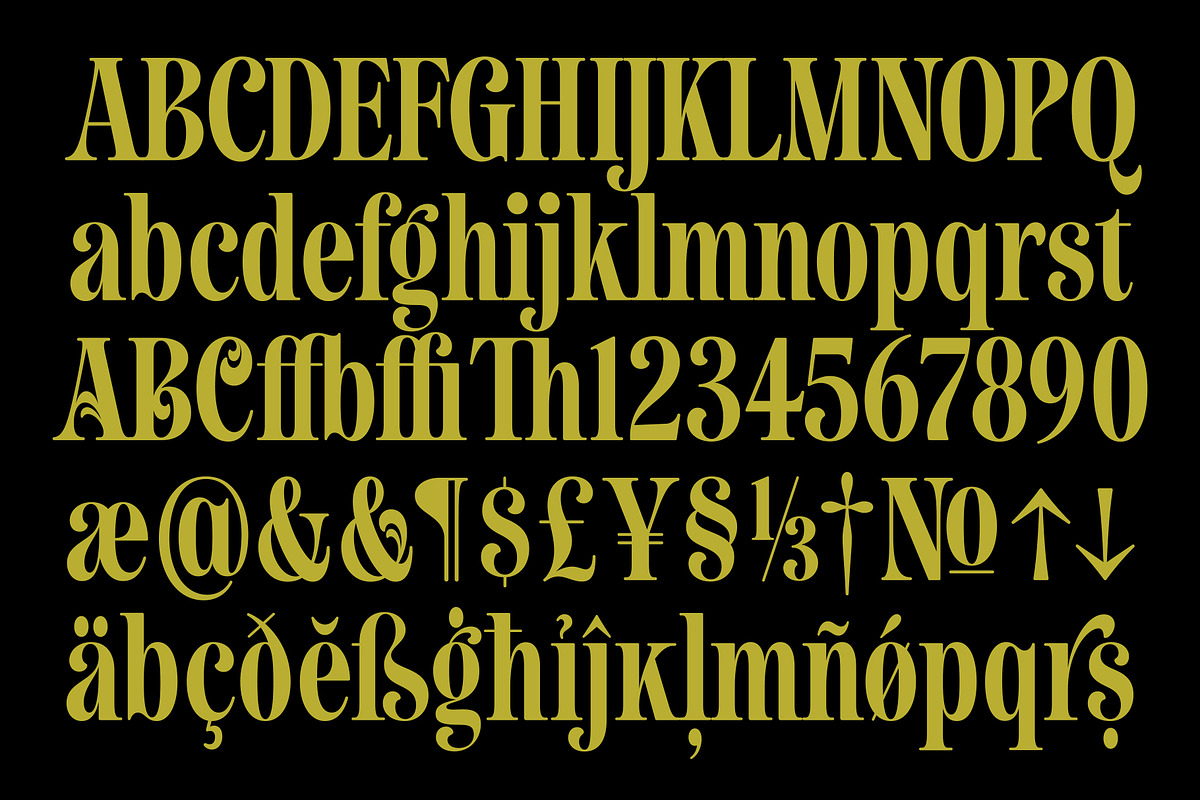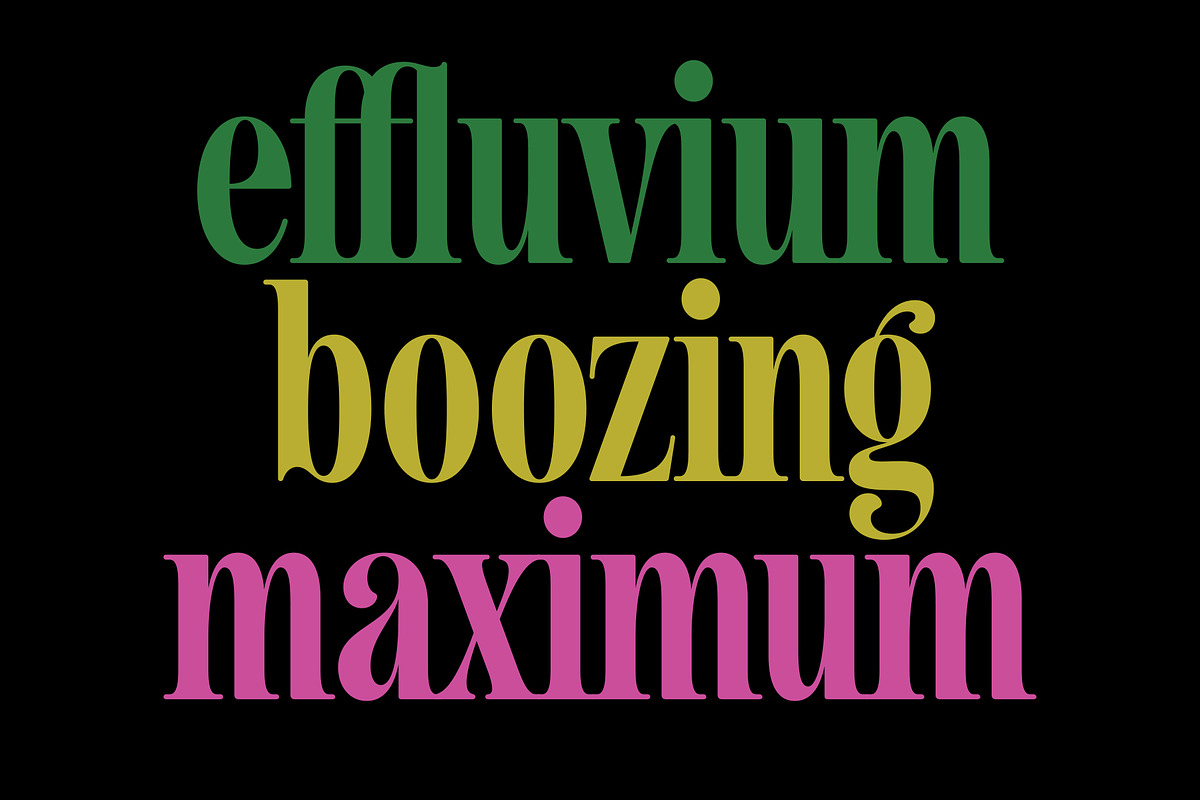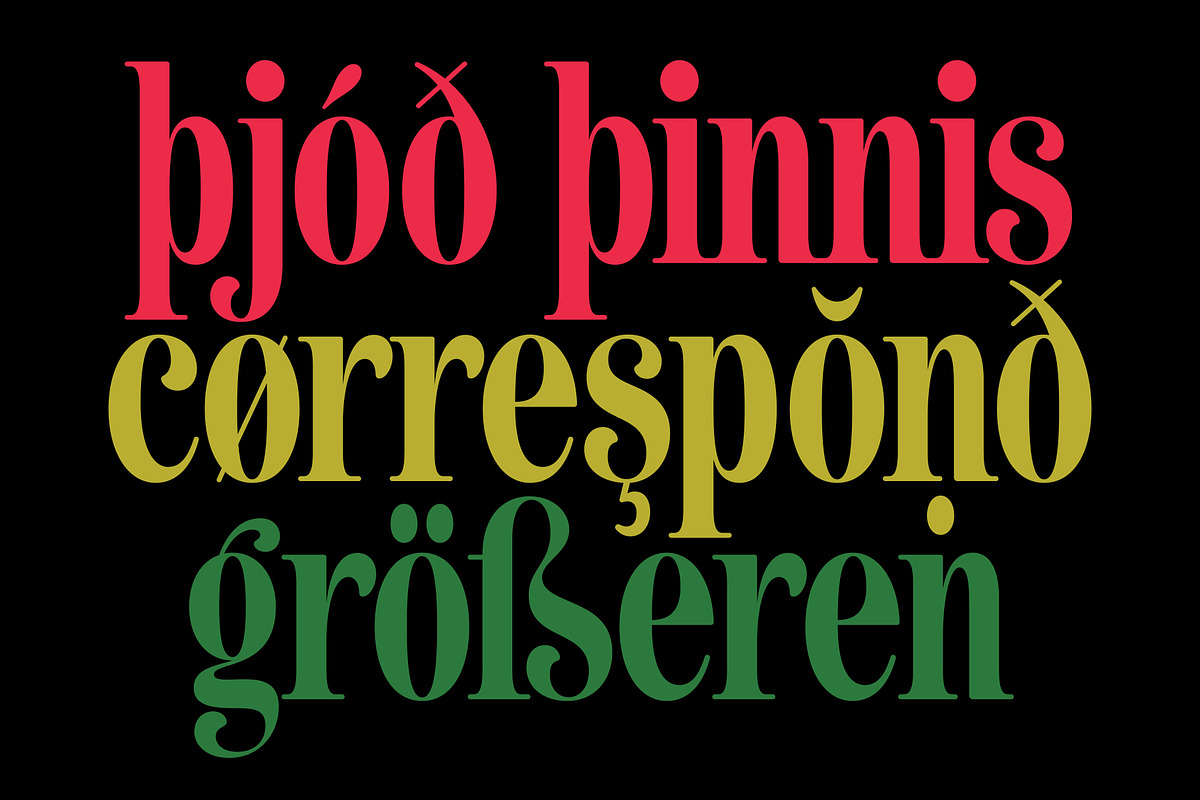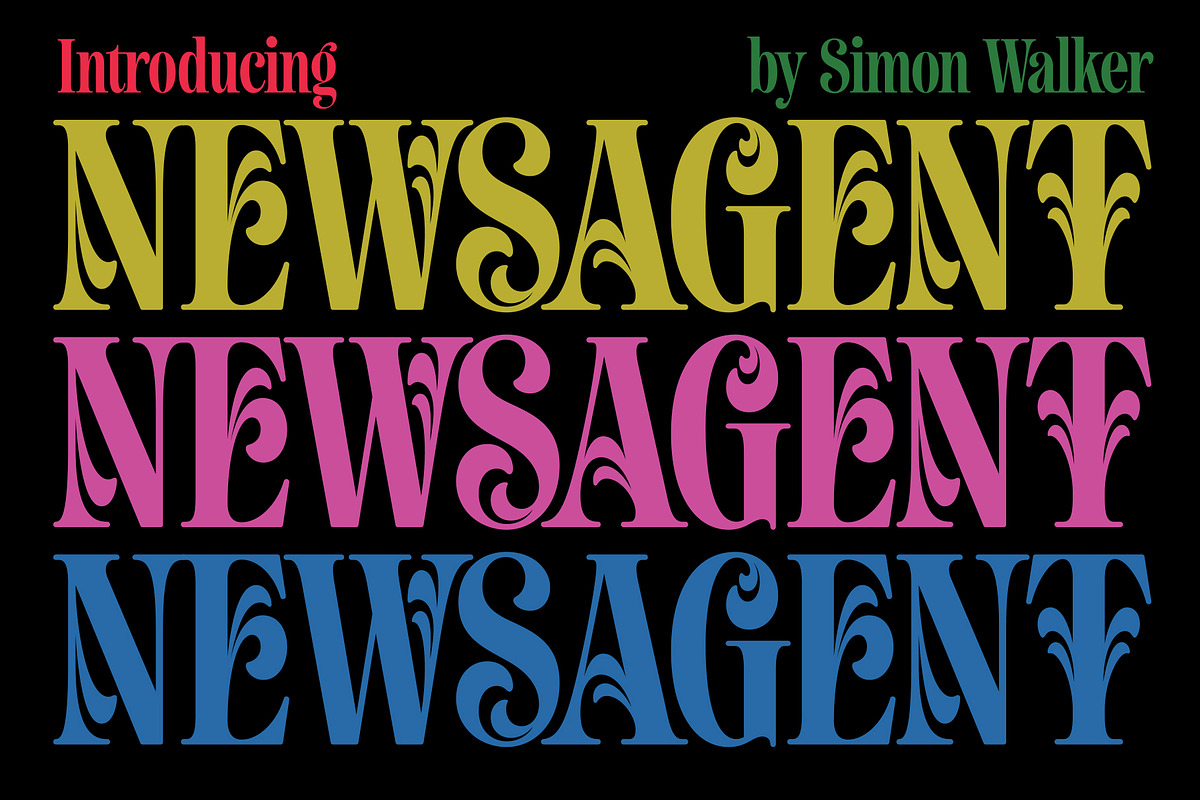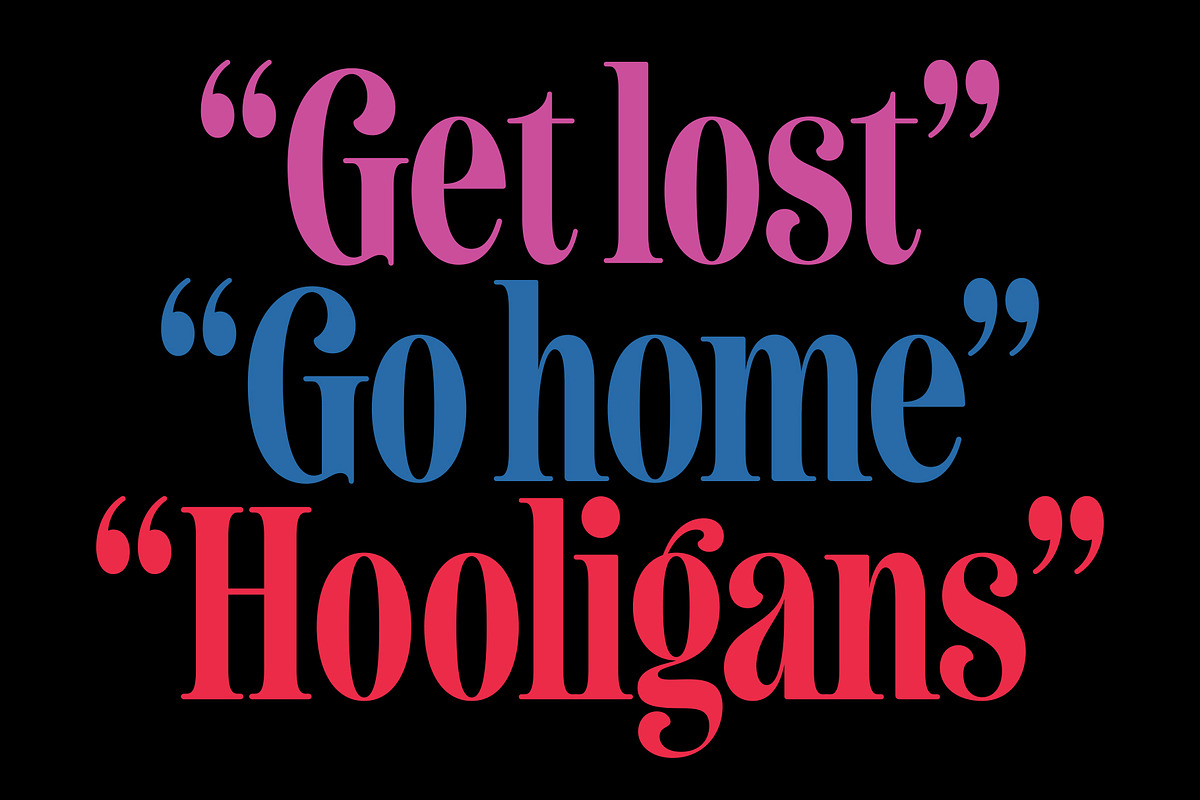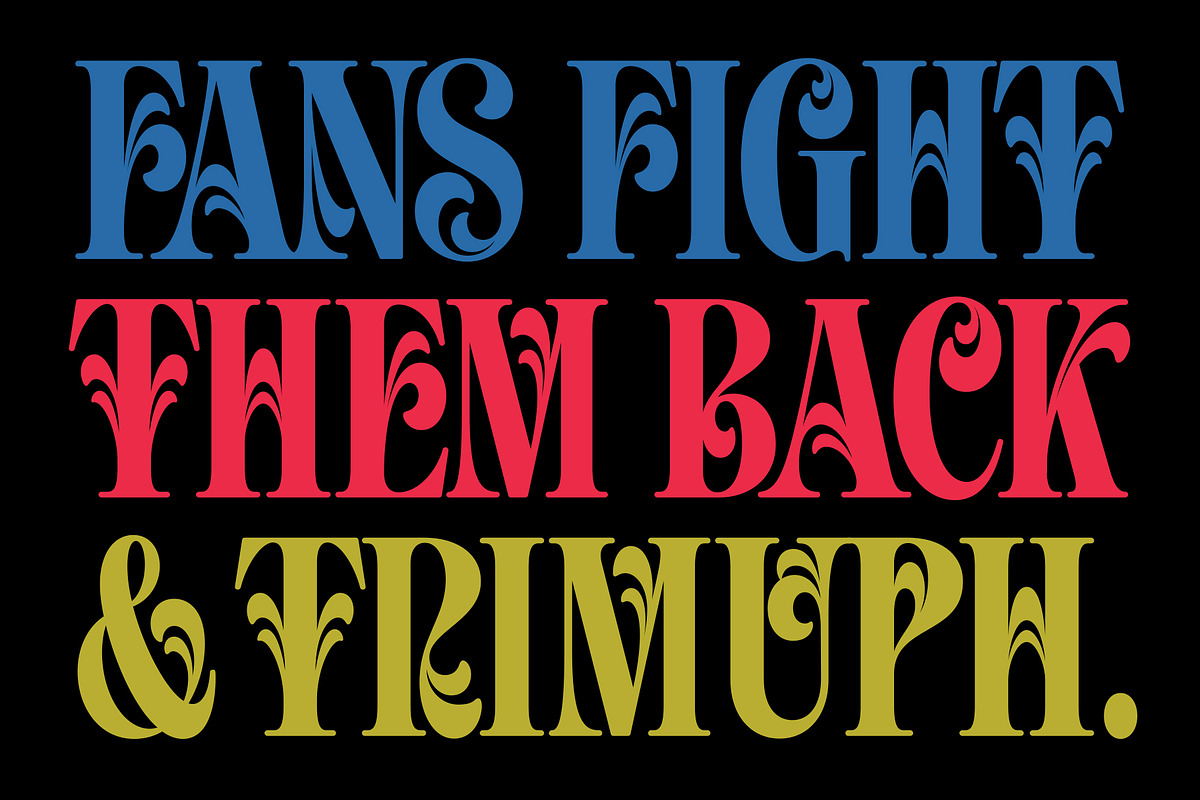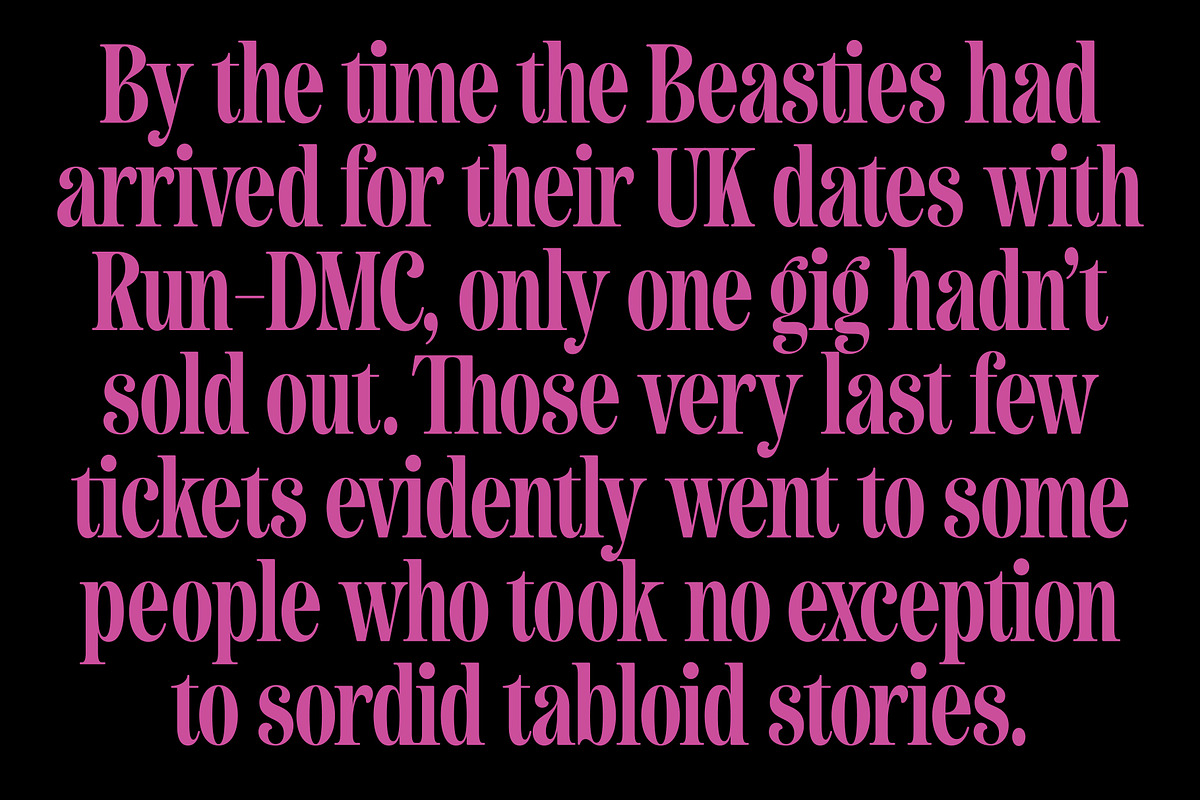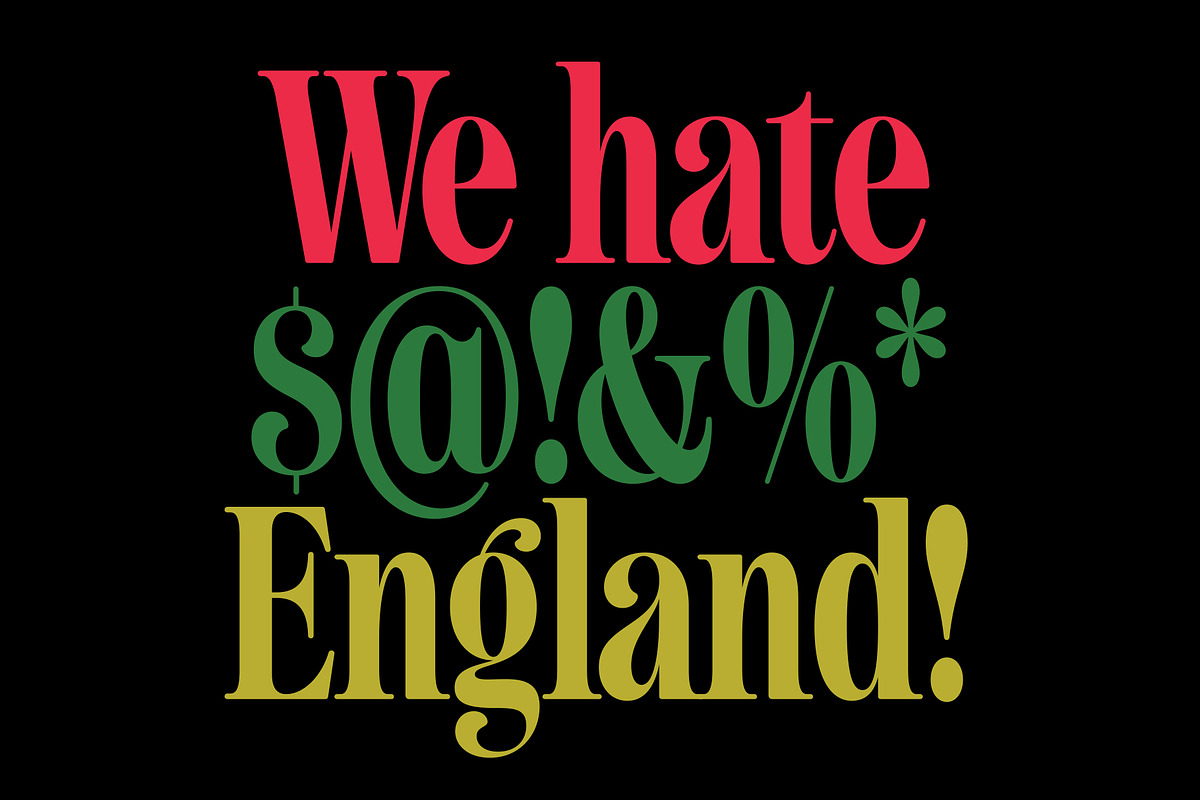
Newsagent
Newsagent is a bold, condensed serif font in a robust and formal style with some soft, modern flourishes and a set of super-decorative swash caps meant to be used together and kerned TIGHT. Check out a sample PDF, here: https://www.dropbox.com/s/4rbr3slzwc80wc1/newsagent_sample.pdf?dl=0